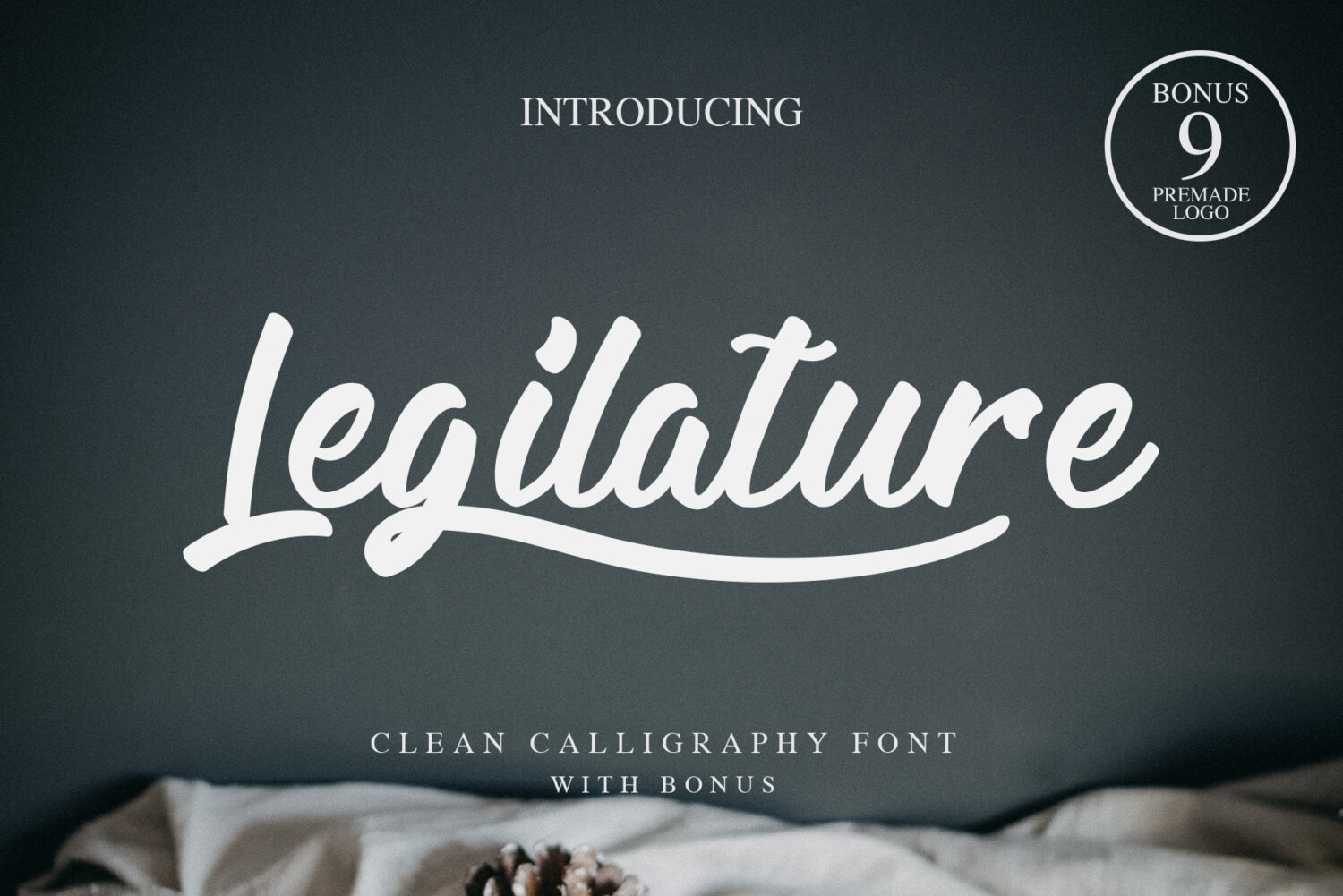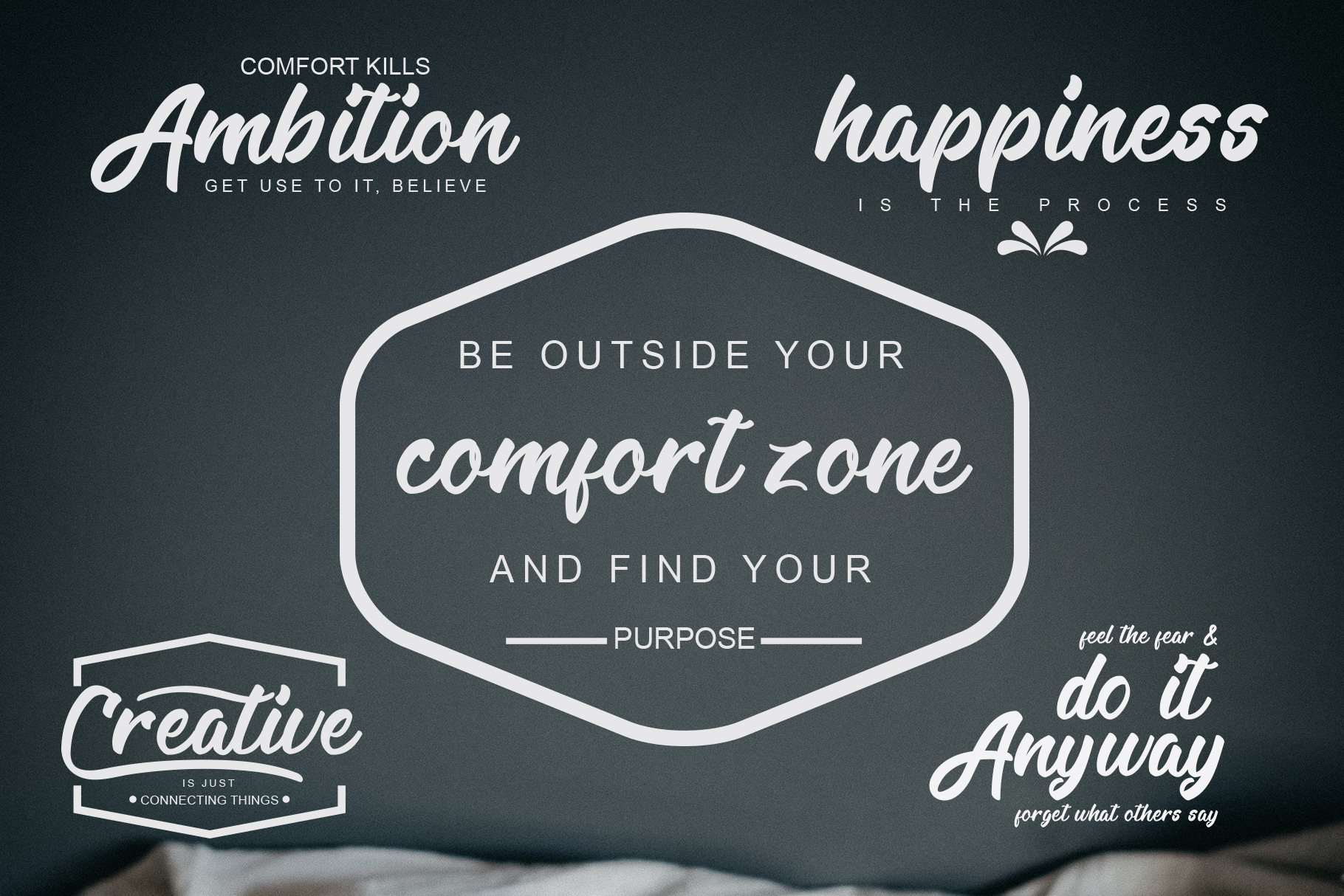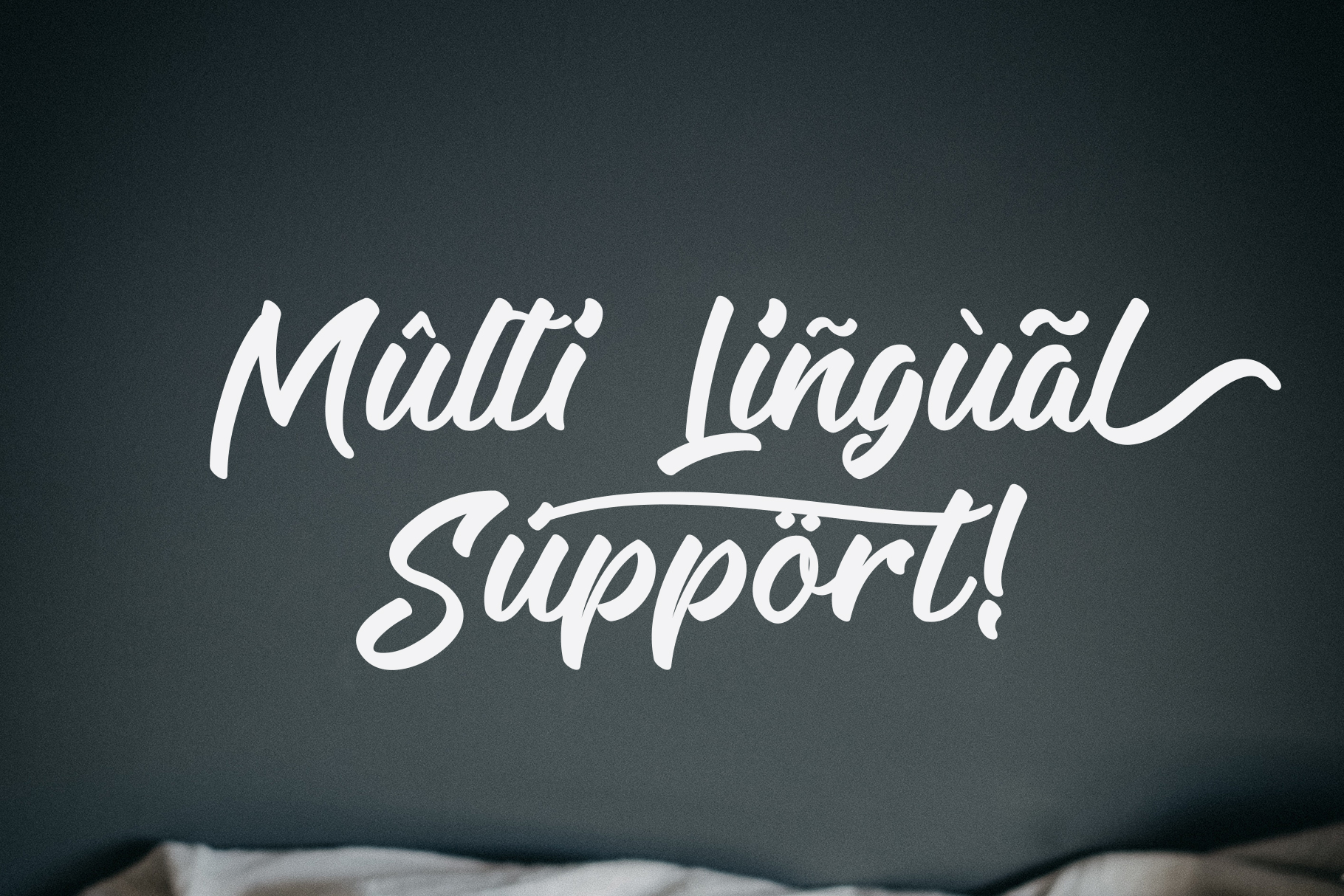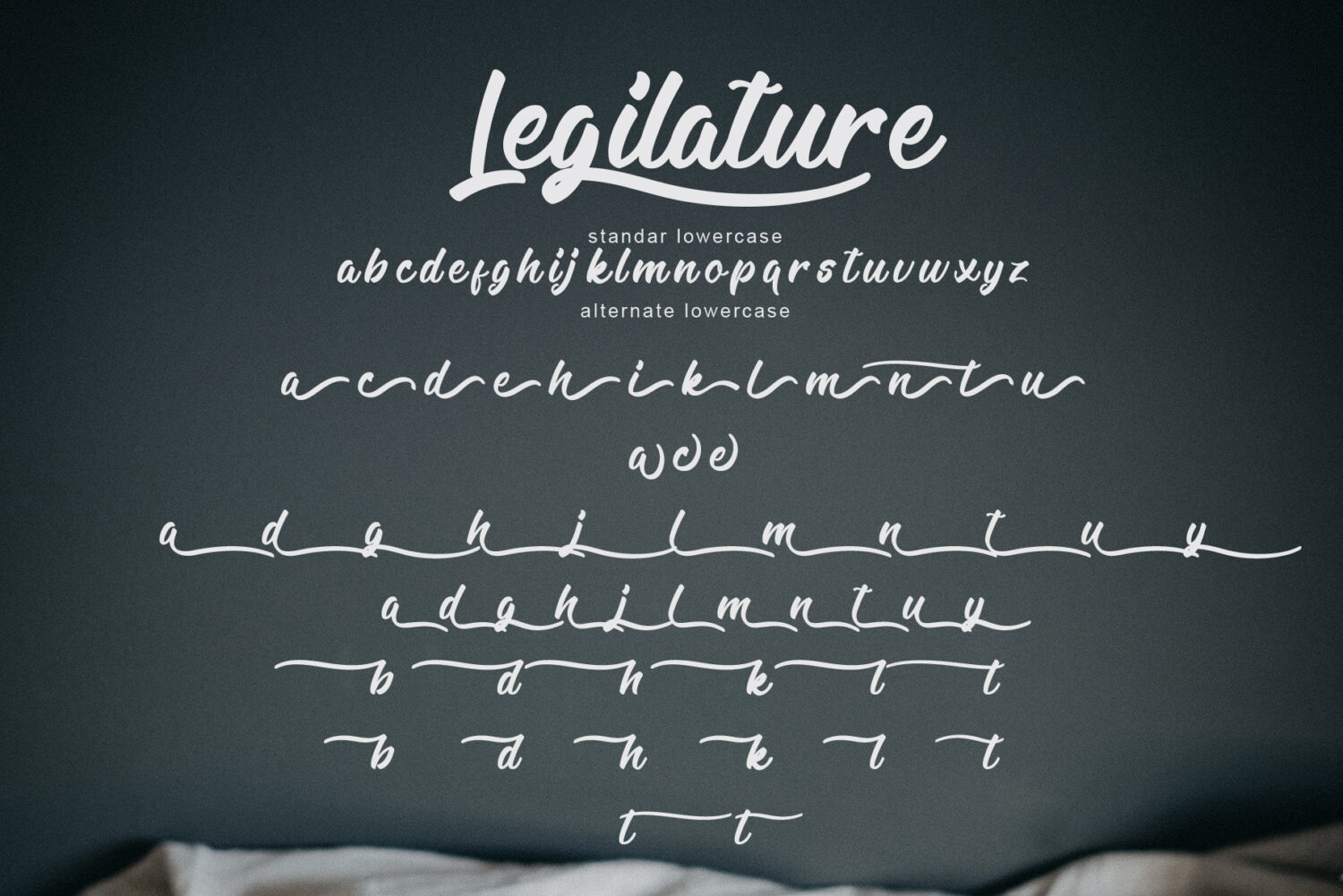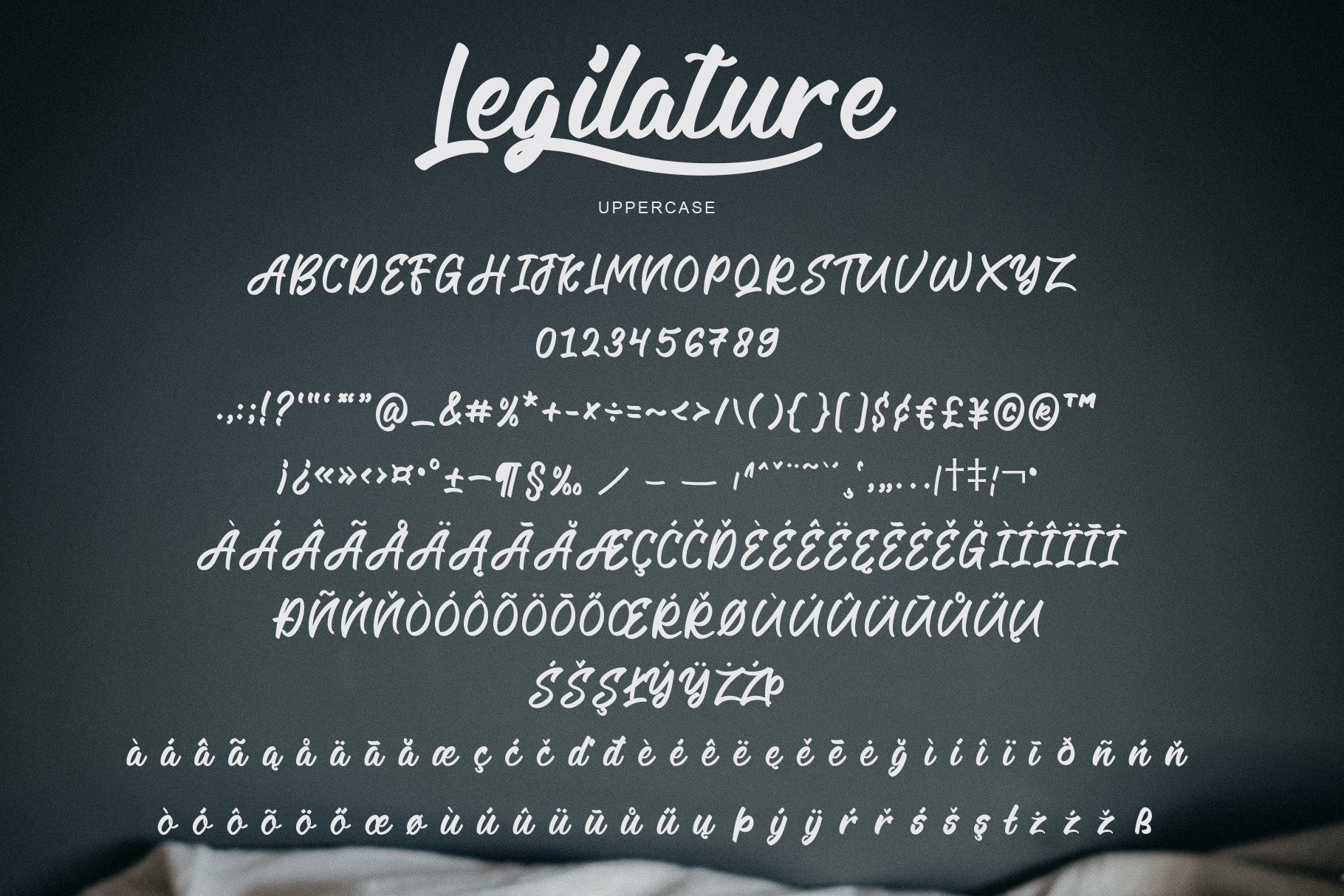
Legilature Free Font
Legilature Free Font is a modern calligraphy font is a font with a simple and modern calligraphy style, this font is great for your next creative projects such as quotes, album cover, business card, and much other design projects. This free typeface was designed by a talented Alphart. If you like it don’t forget to check out the full version.